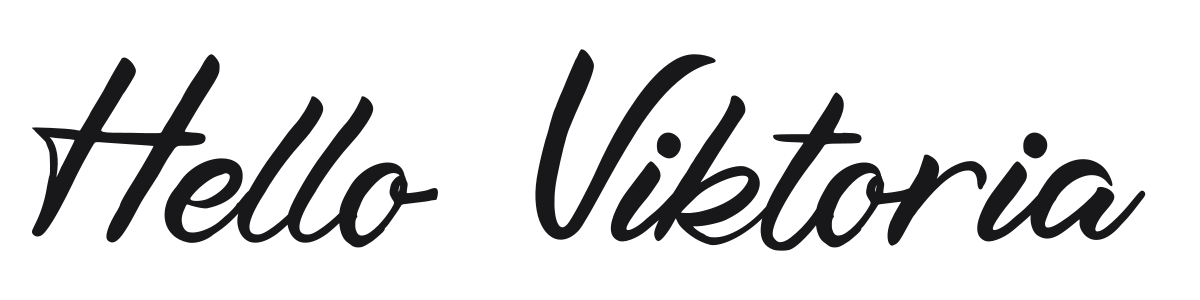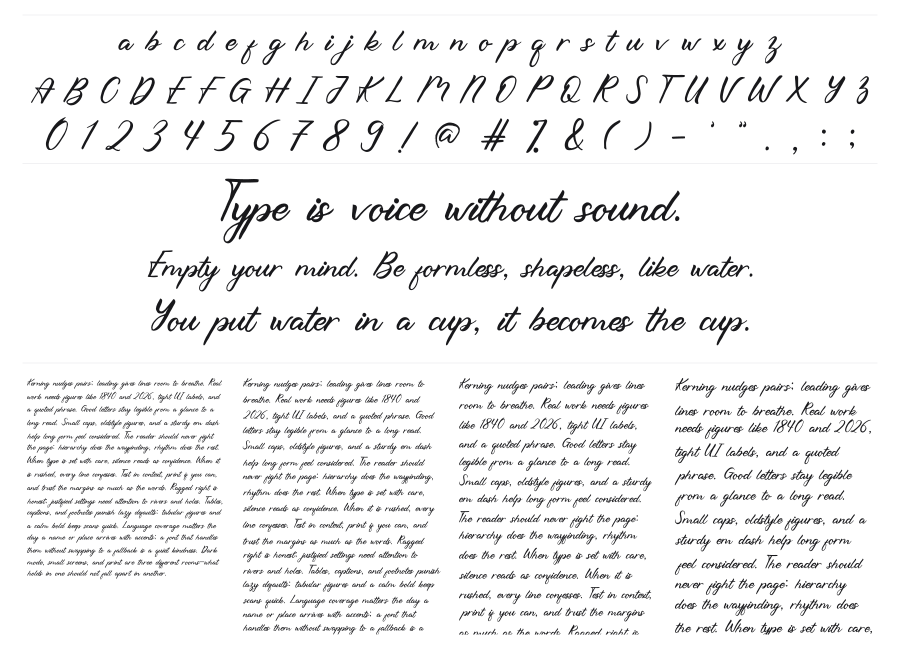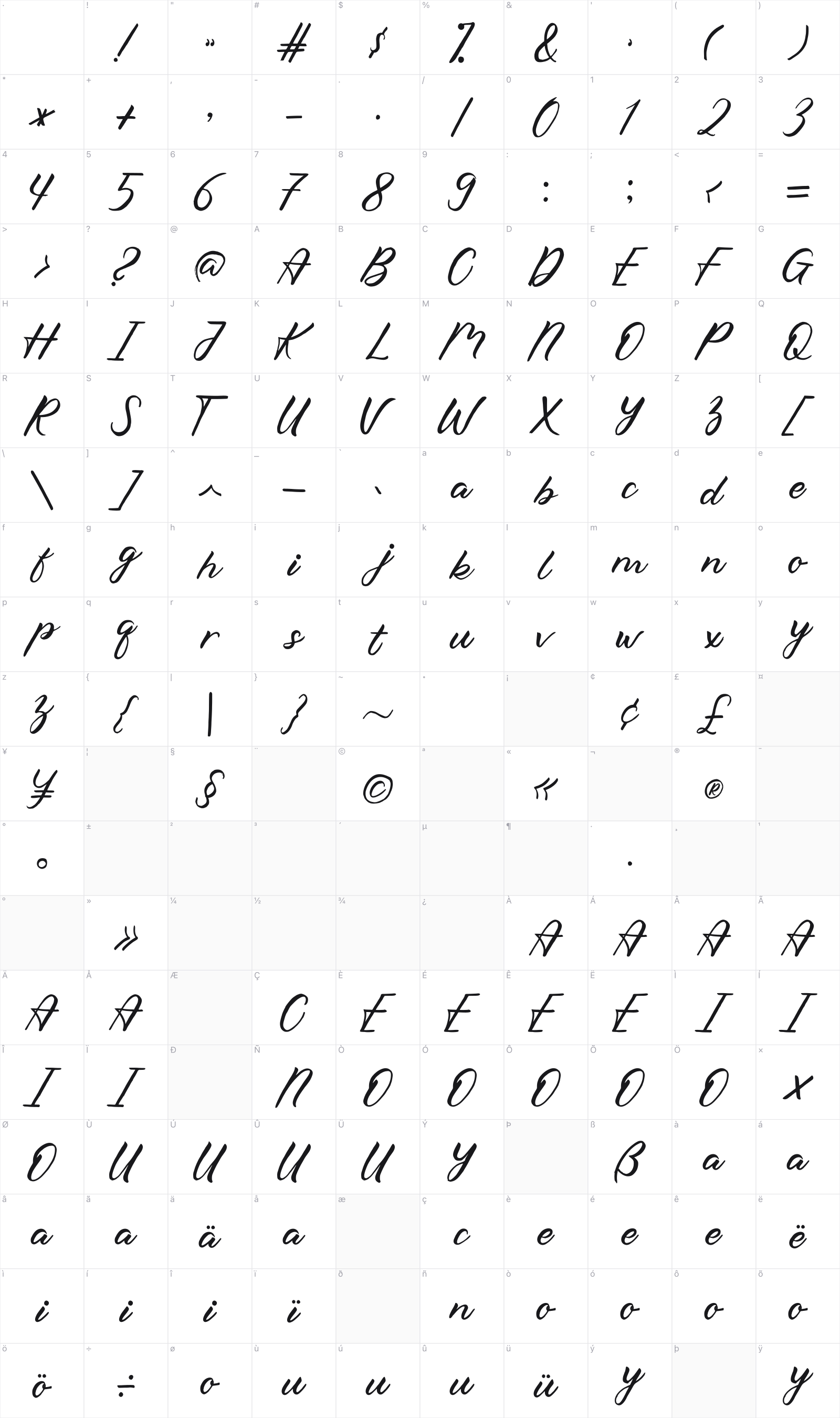
Hello Viktoria
Hello Viktoria is a flowing casual script with confident ink-like strokes and generous looping ascenders and descenders. The moderate stroke contrast and smooth curves give it a natural, hand-lettered feel that sits between formal calligraphy and everyday handwriting. It carries a warm, approachable energy that reads well on branding, packaging, and editorial headlines.